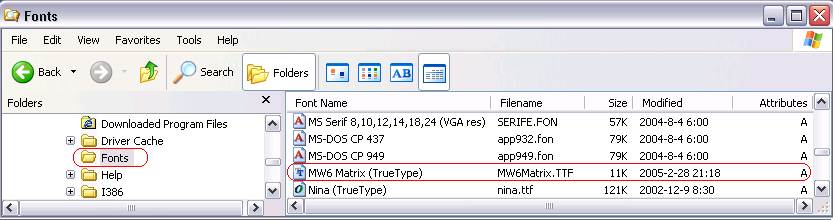
The Aztec symbols are square overall on a square grid with a square central bullseye finder, the smallest Aztec Code symbol is 15x15 modules square and it encodes 13 numeric or 12 alphabetic characters, the largest Aztec Code symbol is 151x151 and it encodes 3832 numeric or 3067 alphabetic characters or 1914 bytes of data.
Font name |
Height/Width of a module at 12 points |
MW6 Matrix |
1/30 inch |